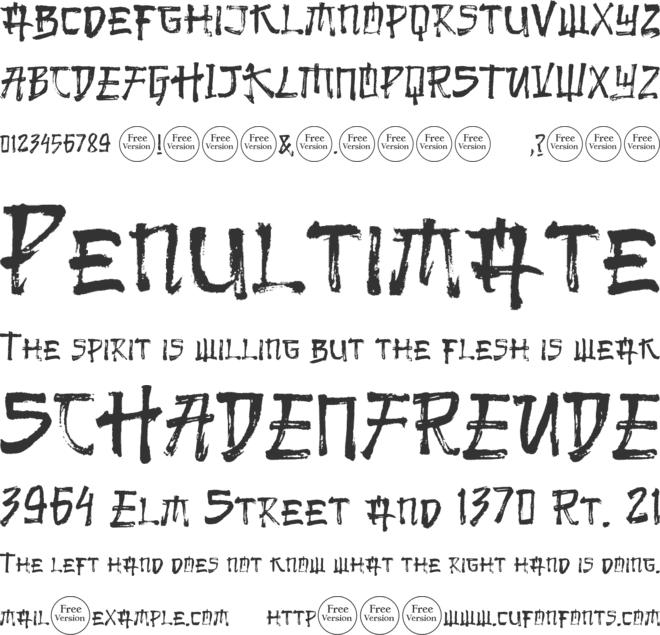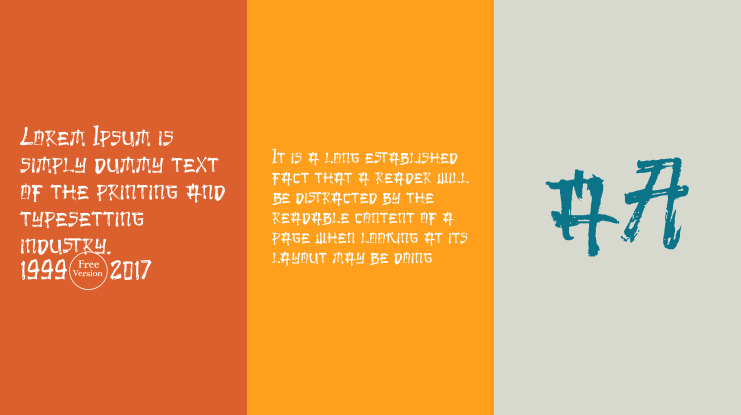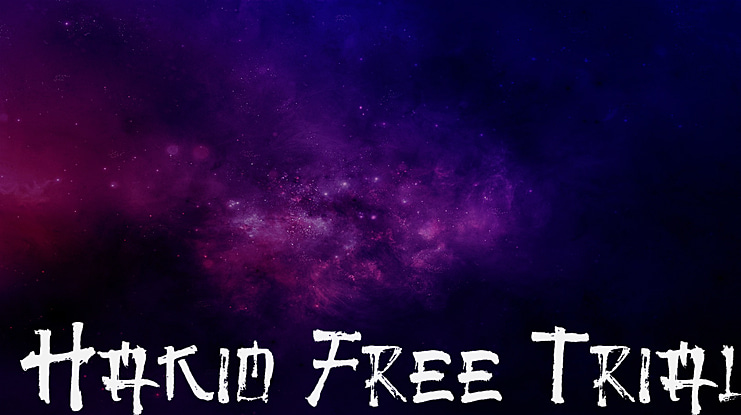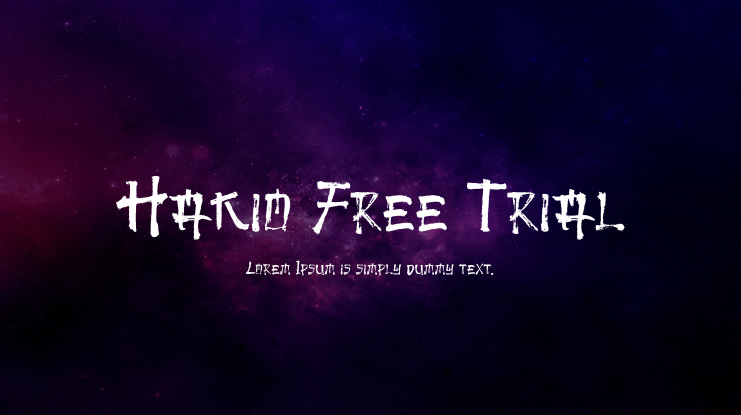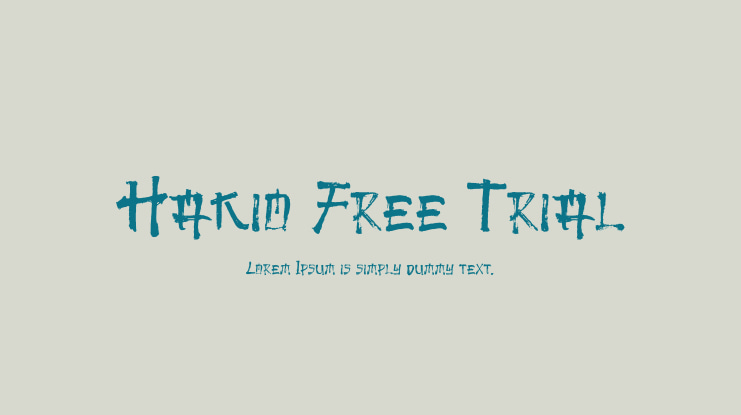
Hakio Free Trial Font
Hakio is an awesome Japanese inspired font. It has a great readability and will add a striking touch to any design!
It will look awesome on any T-shirt, print, or restaurant brand!